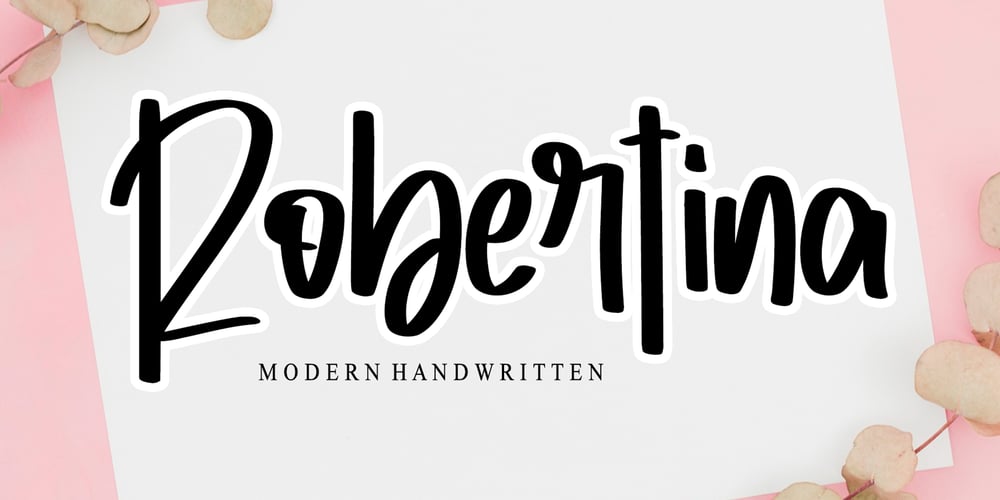
Robertina Font Family was designed by Ahmad Afandi and published by Letterafandi Studio. Robertina contains 2 styles and family package options. Robertina is a Modern handwritten font. That font is perfect for ; logos, greeting cards, a package design, a brand identity, craft design, any DIY project, book title, wedding invitation, packaging and more.